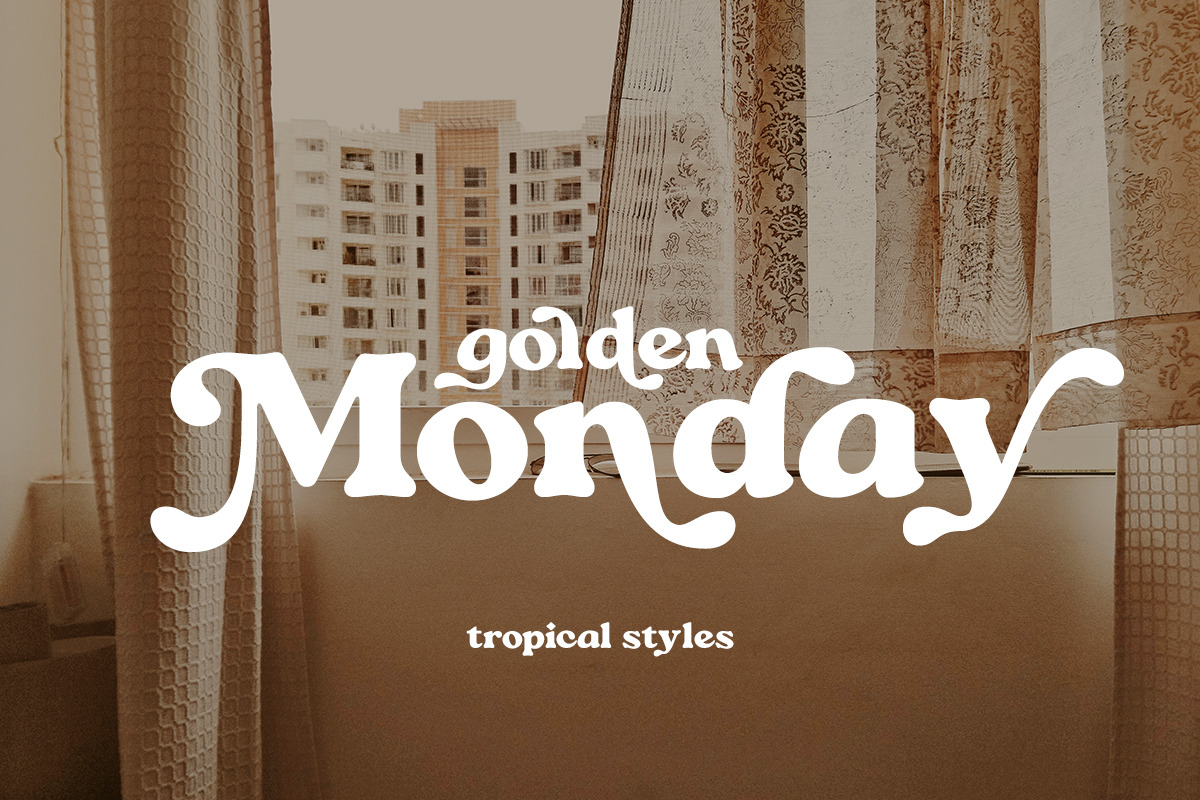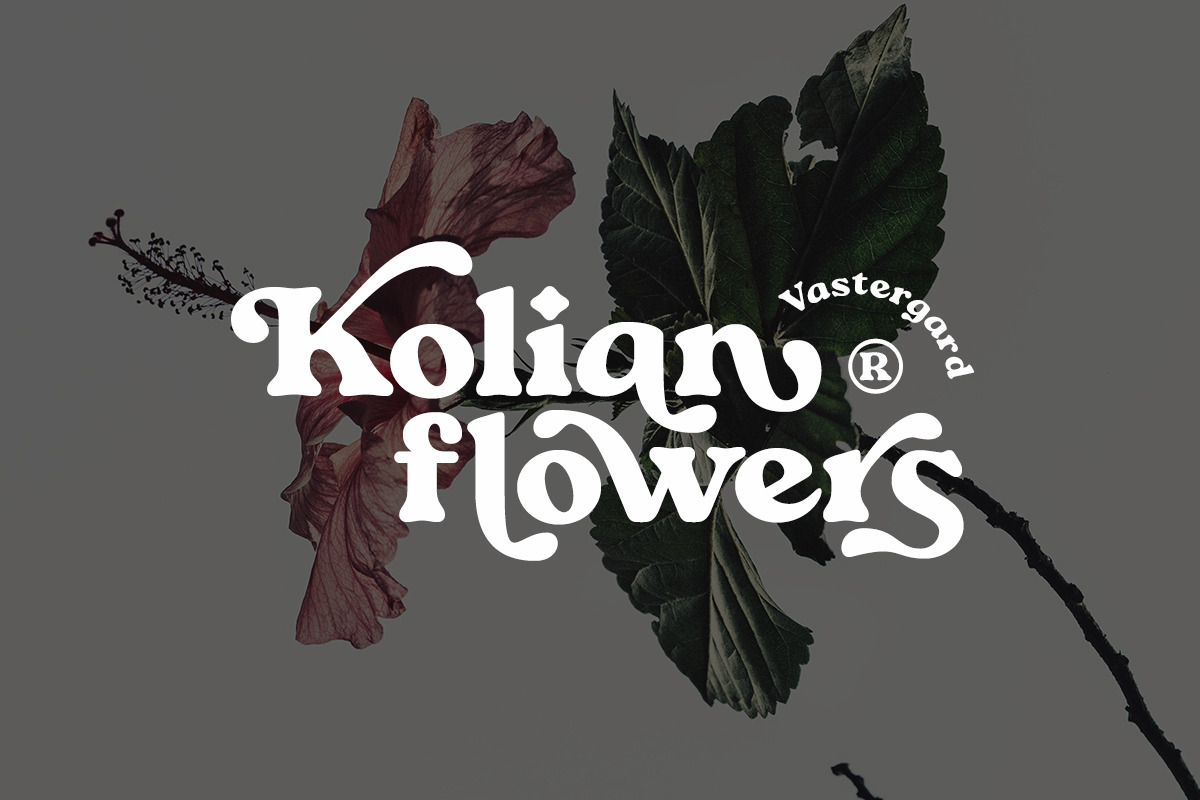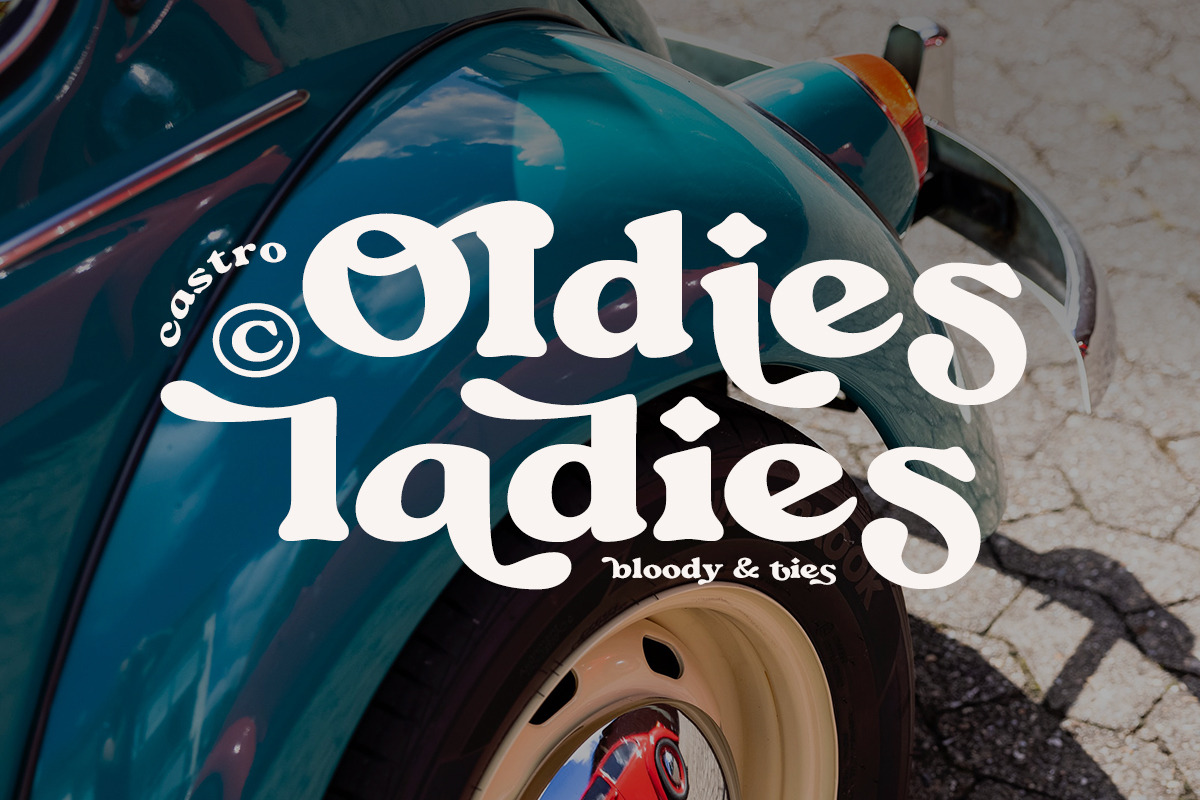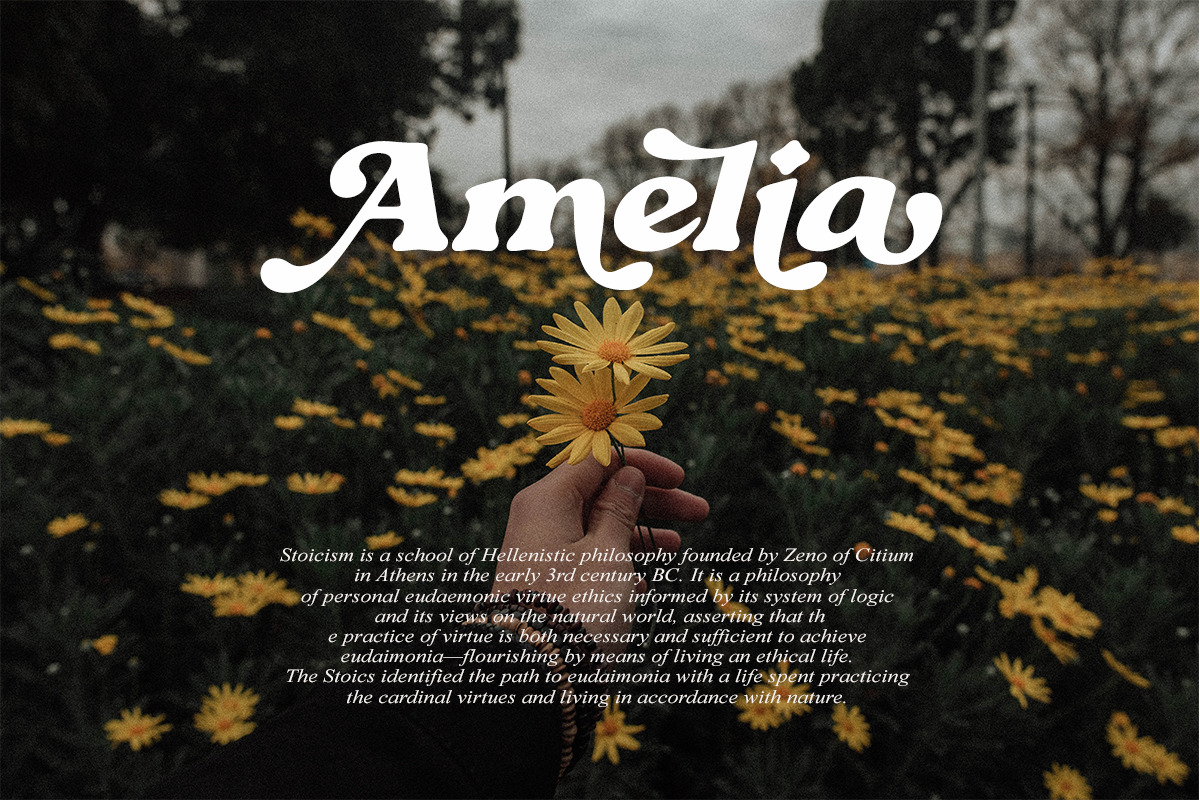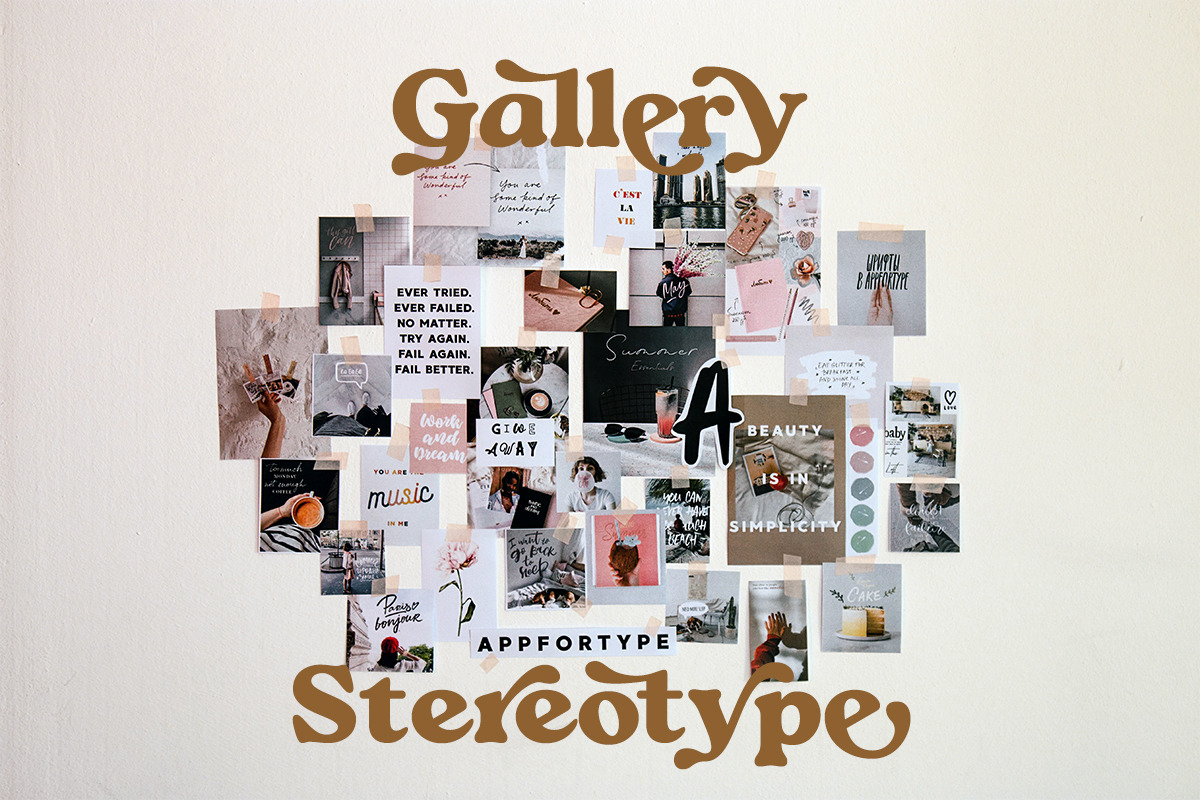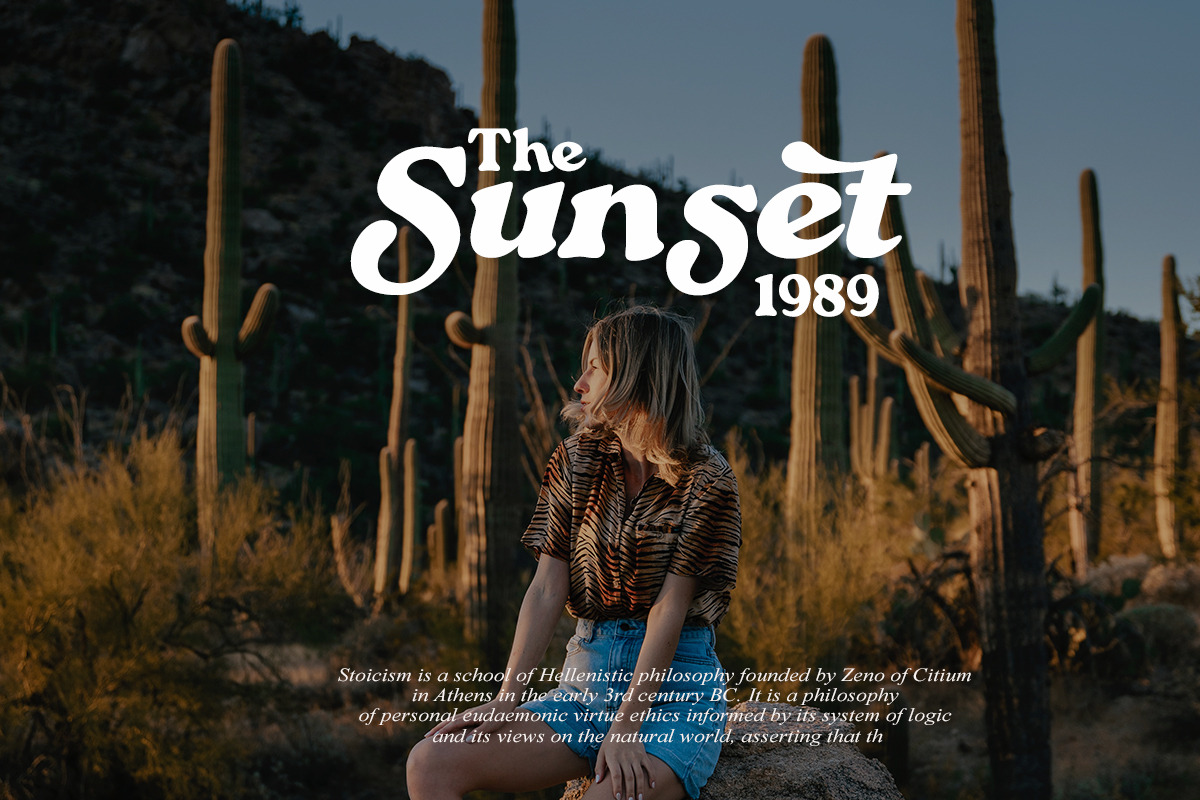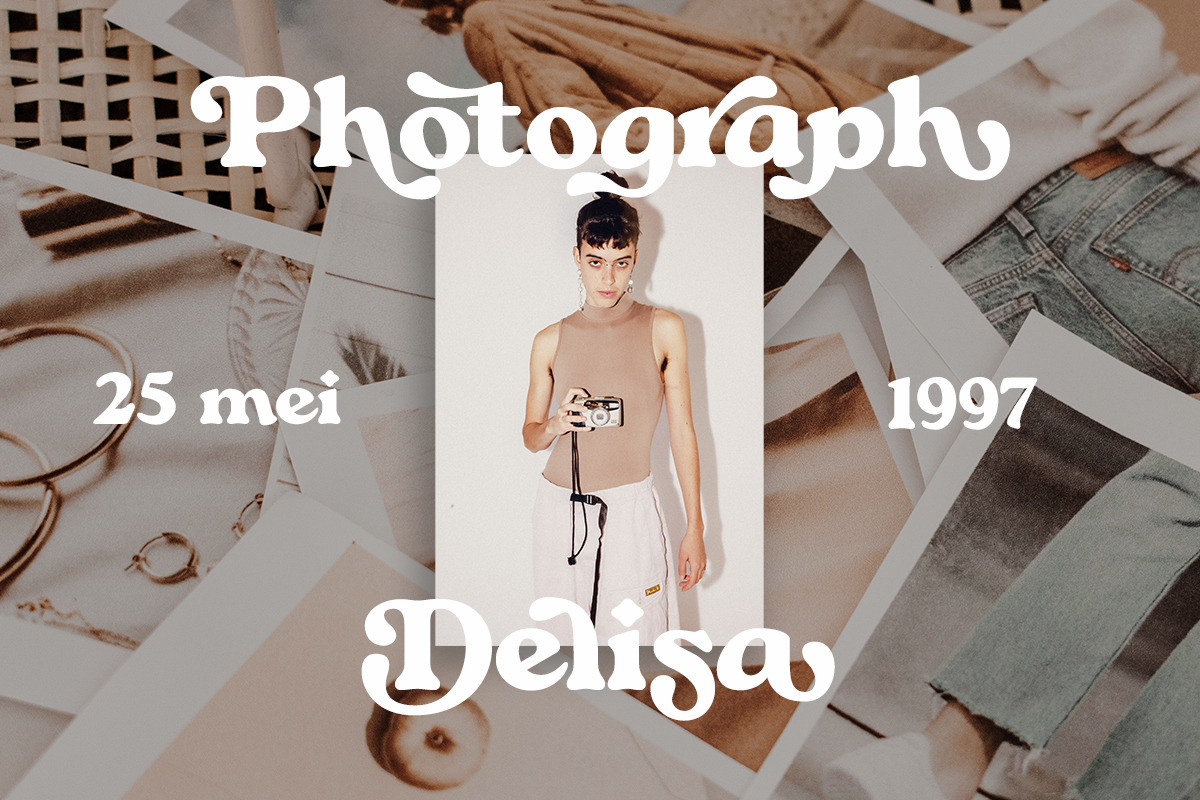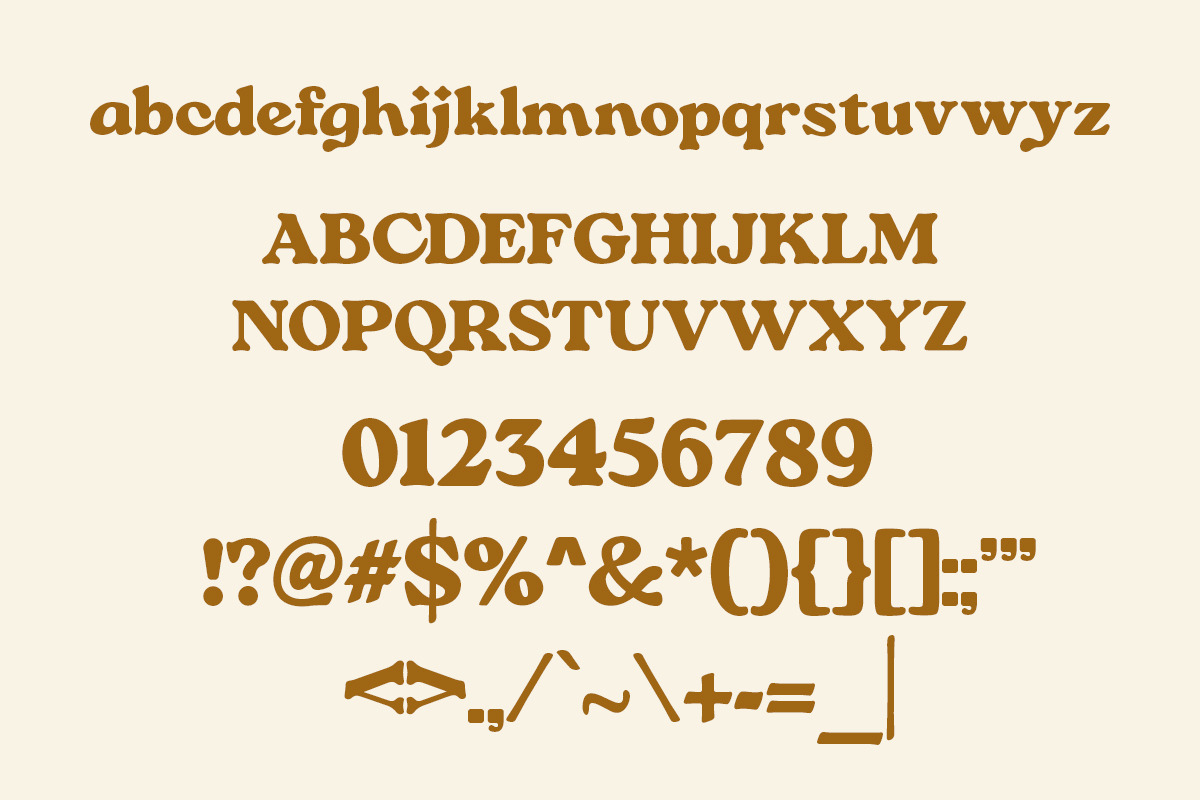
Astro Earth | Retro Display
Astro Earth fonts includes uppercase letters, lowercase letters, numerals, a large range of punctuation. Serif font with modern stylish style include ligatures and alternate characters. Created for poster, web design, branding, illustrations, badges and some other works. Include ending swashes and alternative font.